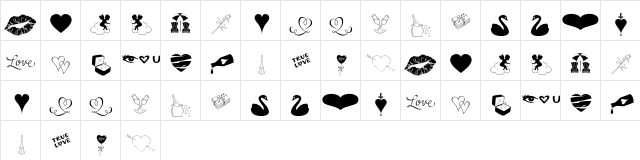
Love Romance OT Regular
Design Context for Love Romance OT Typeface
Love Romance OT is a composed and adaptable typeface that performs quietly and consistently across a wide range of design contexts.